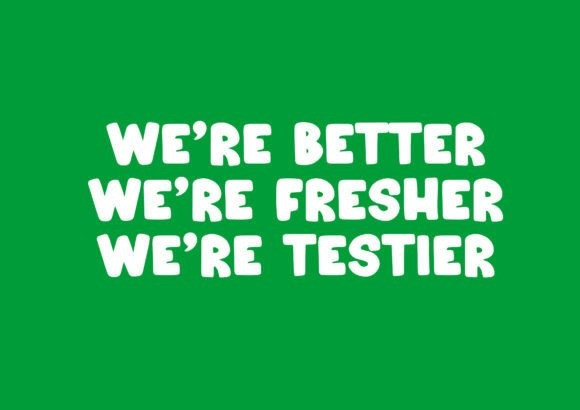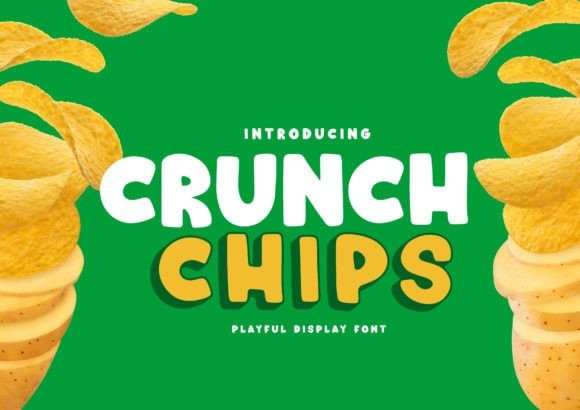
Crunch Chips Font
Crunch Chips Display Font is a fun, bold, and cheerful display font. Its chubby characters and lighthearted nature make this typeface a must-have in your fonts library! Use it to express your creative and playful design ideas.